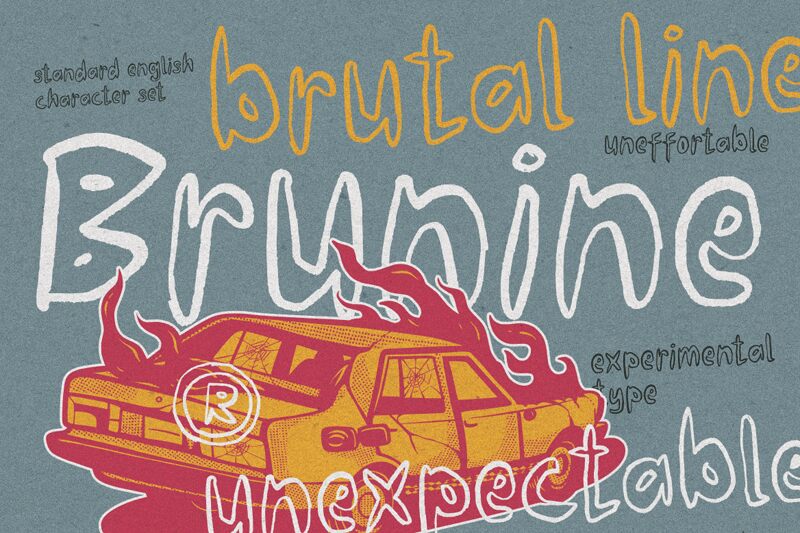
Brunine font is a single font by Holisfonts.com leaning mainly on its experimental and freeform characteristics. Emotive and organic, the font is unconventionally casual and artistic. The font is dynamic in addition to being informal. The font is created passionately. Constructed to deliver an inviting tone, Brunine performs perfectly in different designs.
As for its uses, you can think of it to make your logos different yet elegant, in addition to typography that is as stylish. Animated logos in particular are some of the font’s main suggestions. Also, use Brunine to create lifestyle magazines and travel or food blogs in a less serious tone. Other ideas are websites designs, cover designs, branding, clothing designs, and advertising.
Please note that it does not support multilingual characters.